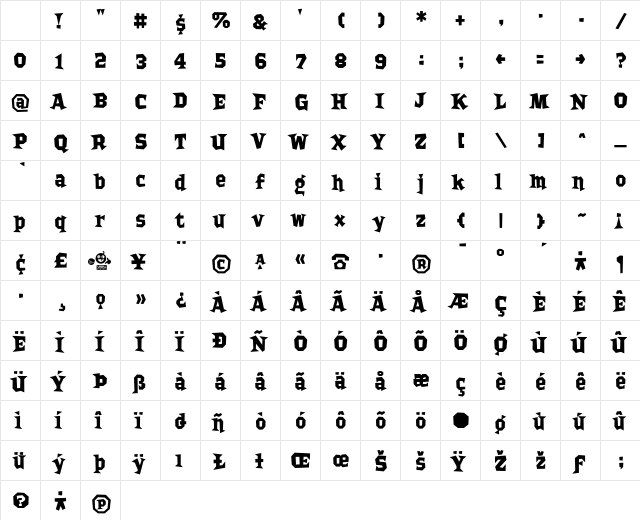
Bordello is a composed and adaptable typeface that performs quietly and consistently across a wide range of design contexts. Its bold stroke weight gives it real presence on the page.